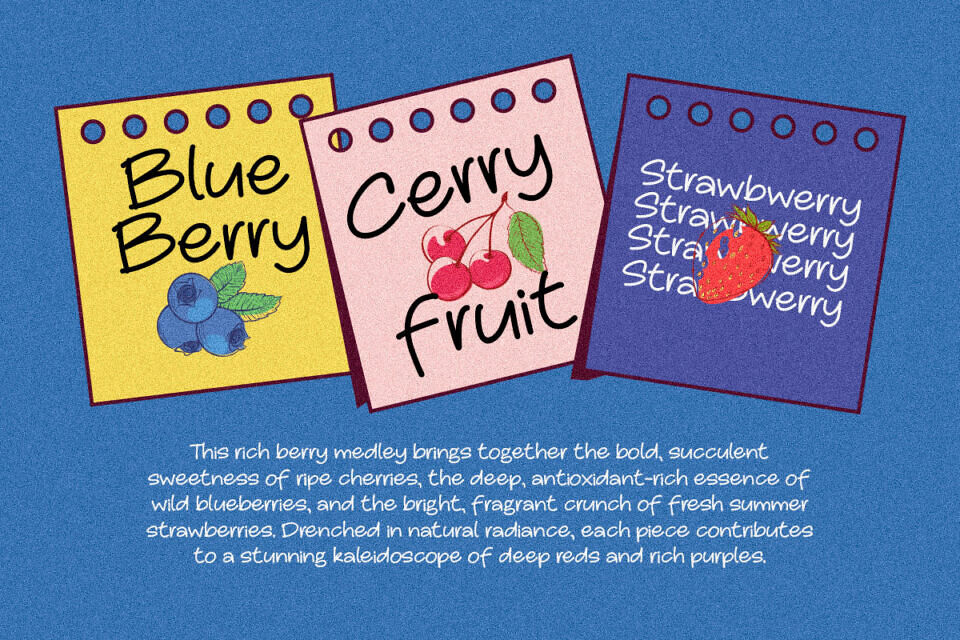
Sanger Memo is a casual handwritten marker note font designed to capture the authentic feel of spontaneous handwriting and quick creative notes. With its smooth marker strokes, organic texture, and natural flow, this font brings warmth, personality, and a handmade touch into every design.
Available in Monoline, Regular, and Bold styles, Sanger Memo gives you the flexibility to create everything from clean minimalist layouts to bold attention-grabbing typography. Whether used individually or combined together, these styles help create dynamic and expressive visual compositions.